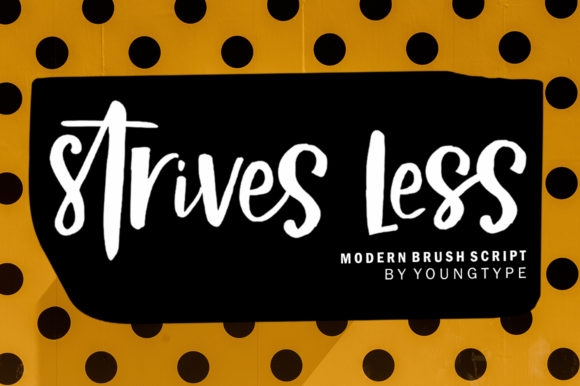
Unleash your creativity with Strives Less Font, a script masterpiece that exudes boldness and sophistication. Its authentic extended characters dance across your designs, adding a touch of elegance to logos, branding, packaging, and more. Whether you're a seasoned designer or just starting out, Strives Less will elevate your projects with its timeless appeal and versatile charm.
Discover the artistry of Youngtype, the font foundry behind Strives Less. With a keen eye for detail and a passion for innovation, Youngtype has crafted a font that is both visually stunning and highly functional. Experience the beauty of Strives Less in all its glory and see your designs come to life with newfound elegance and appeal.
Embrace the power of authenticity and let Strives Less elevate your creative vision. Its meticulously designed characters evoke a sense of genuine craftsmanship, adding a touch of sophistication to your designs that is sure to leave a lasting impression. From logos that command attention to branding that exudes professionalism, Strives Less is the perfect choice for those who demand excellence.
Immerse yourself in a world of endless possibilities with Strives Less. Its carefully crafted curves and graceful lines lend themselves effortlessly to a wide range of design applications. Whether you're creating packaging that captivates your audience or designing marketing materials that leave an unforgettable impact, Strives Less is the font that will make your designs shine.
Don't settle for ordinary fonts that blend into the background. Choose Strives Less and watch as your designs transform into works of art. Its captivating presence demands attention, ensuring that your message stands out from the crowd. Let Strives Less be your secret weapon in the competitive world of design and witness the power of a truly exceptional font.